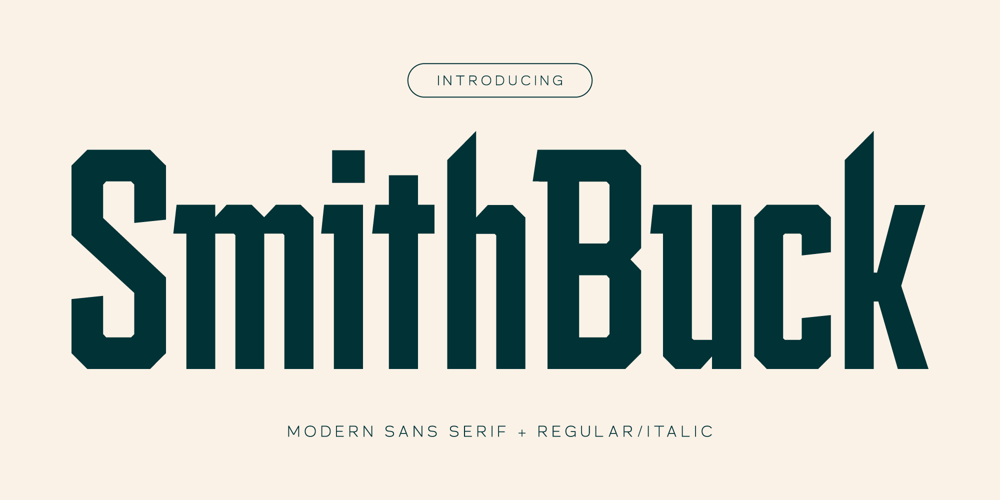
Smith Buck Font Family was designed by Heru Utama Putra and published by Letterena Studios. Smith Buck contains 2 styles and family package options. Smith Buck is a modern and elegant sans serif font with its own unique style. This typeface is perfect for an elegant & luxurious logo, book or movie title design, fashion brand, magazine, clothes, lettering, quotes, and so much more.